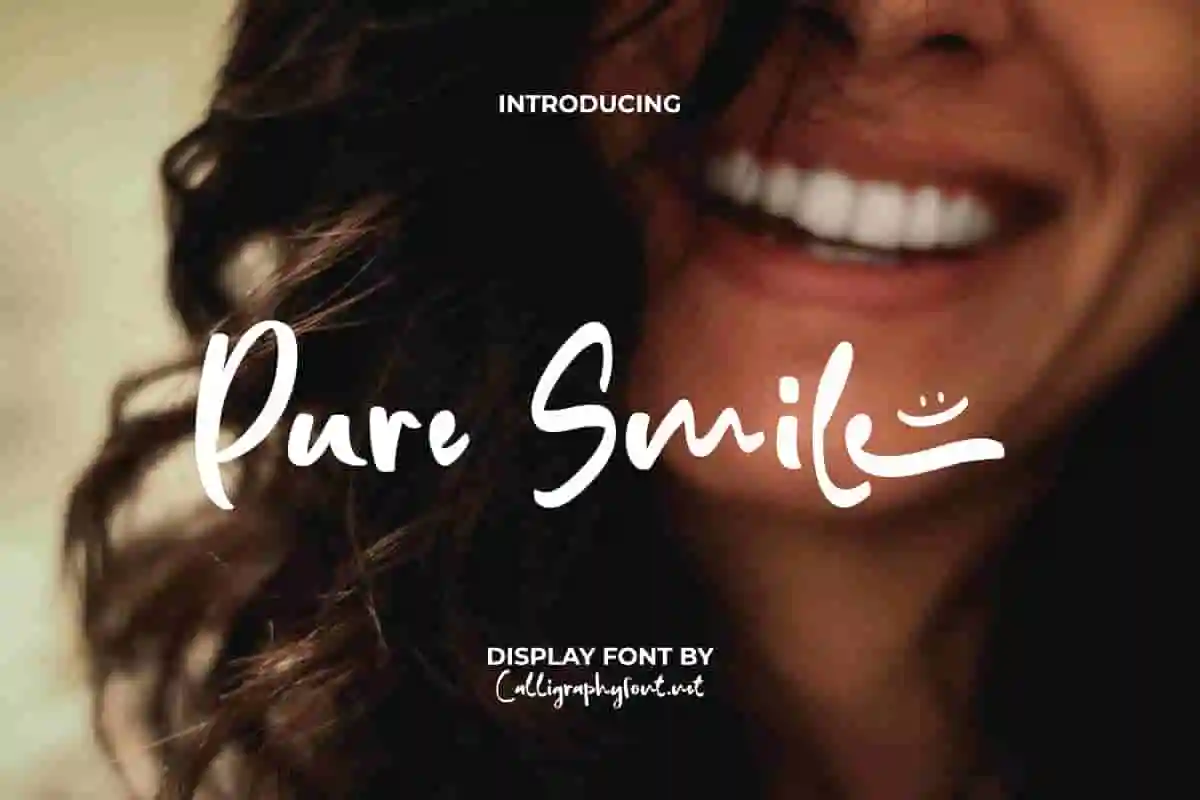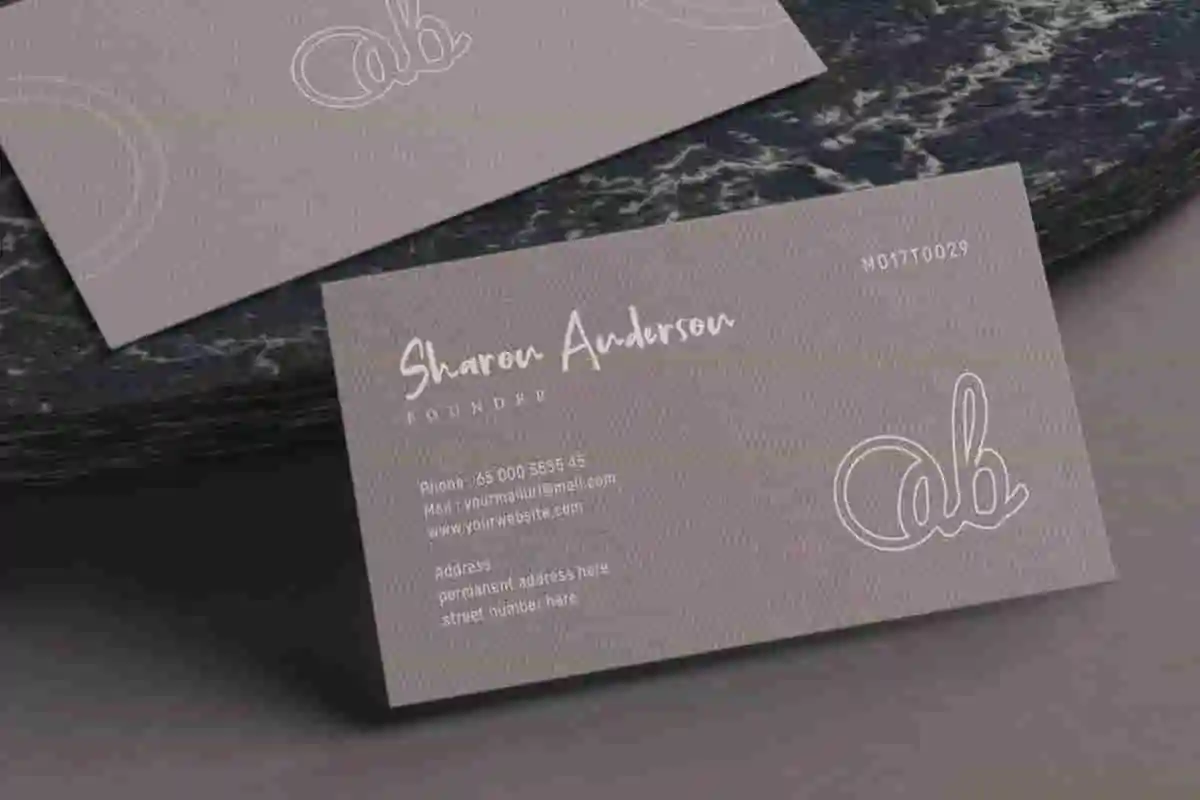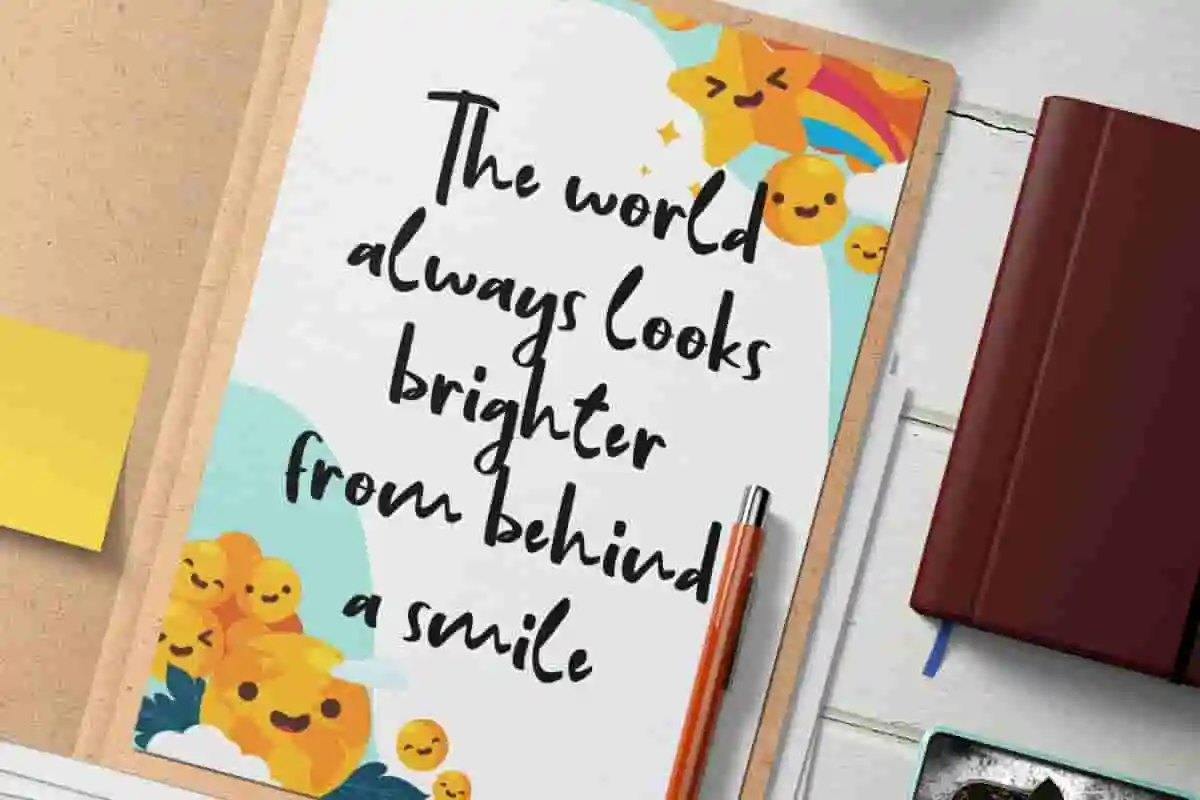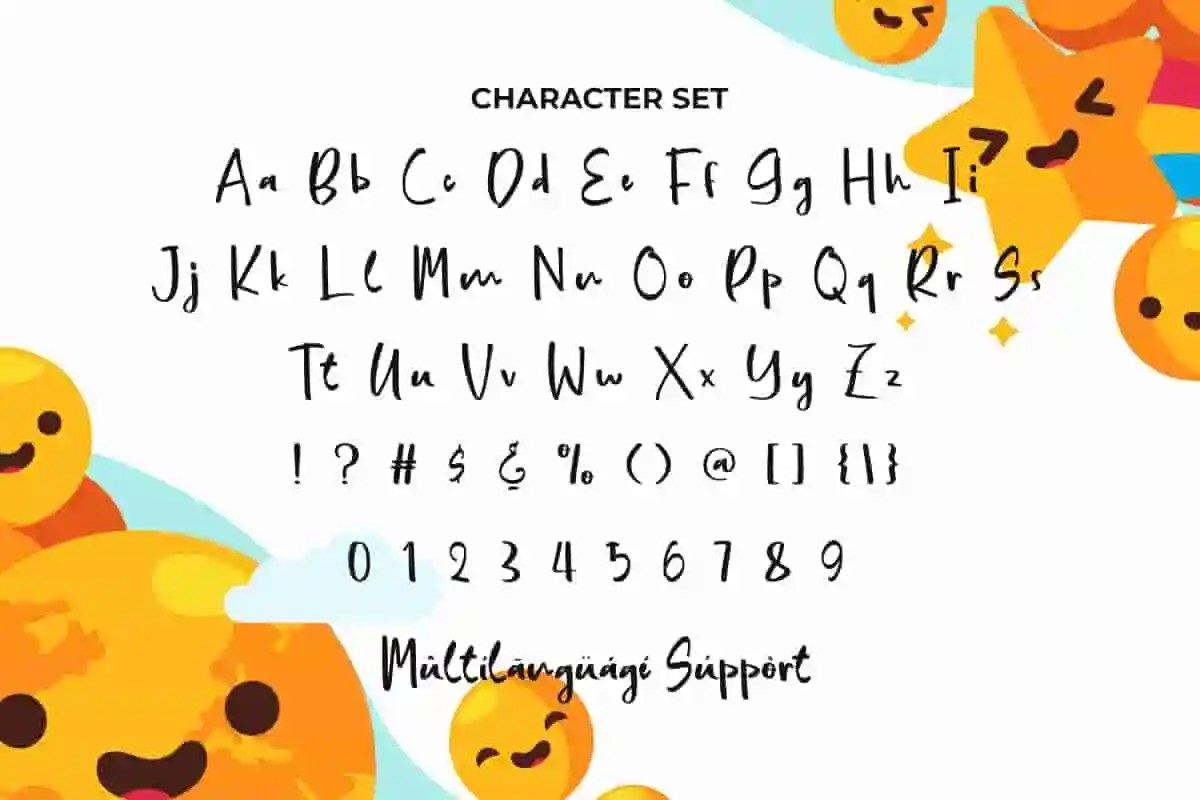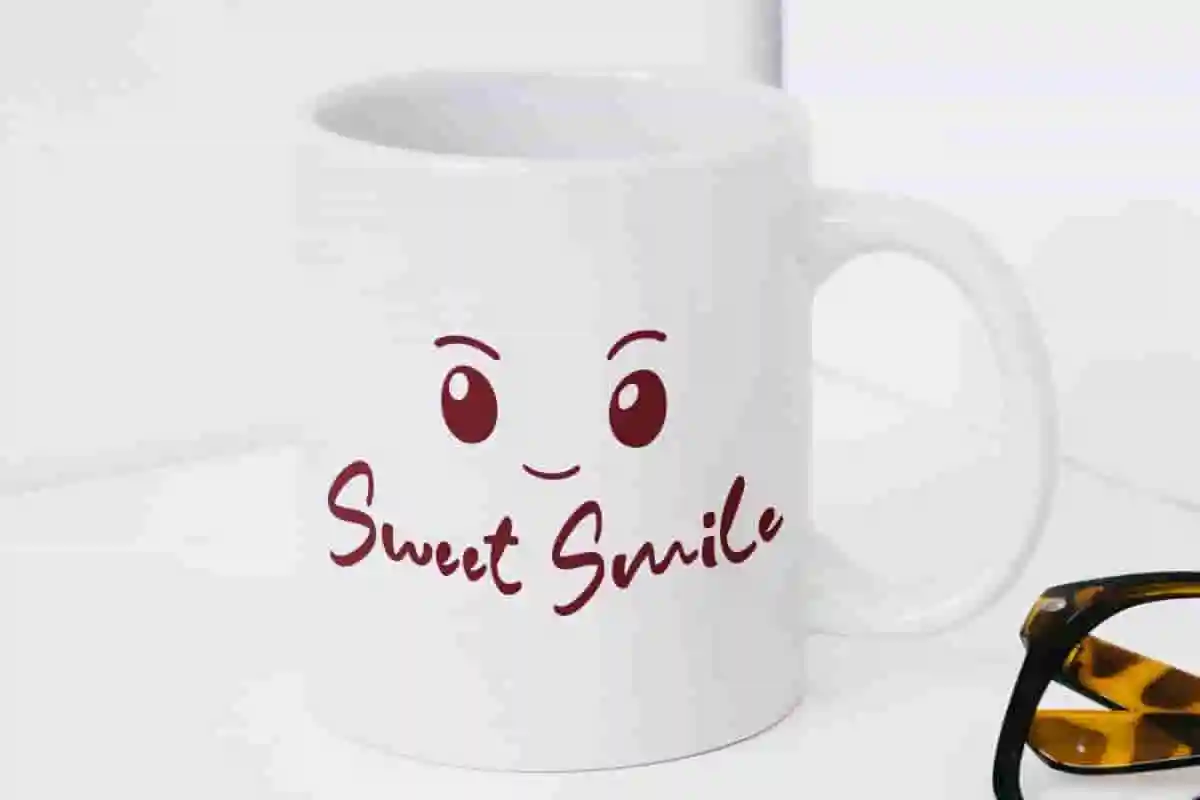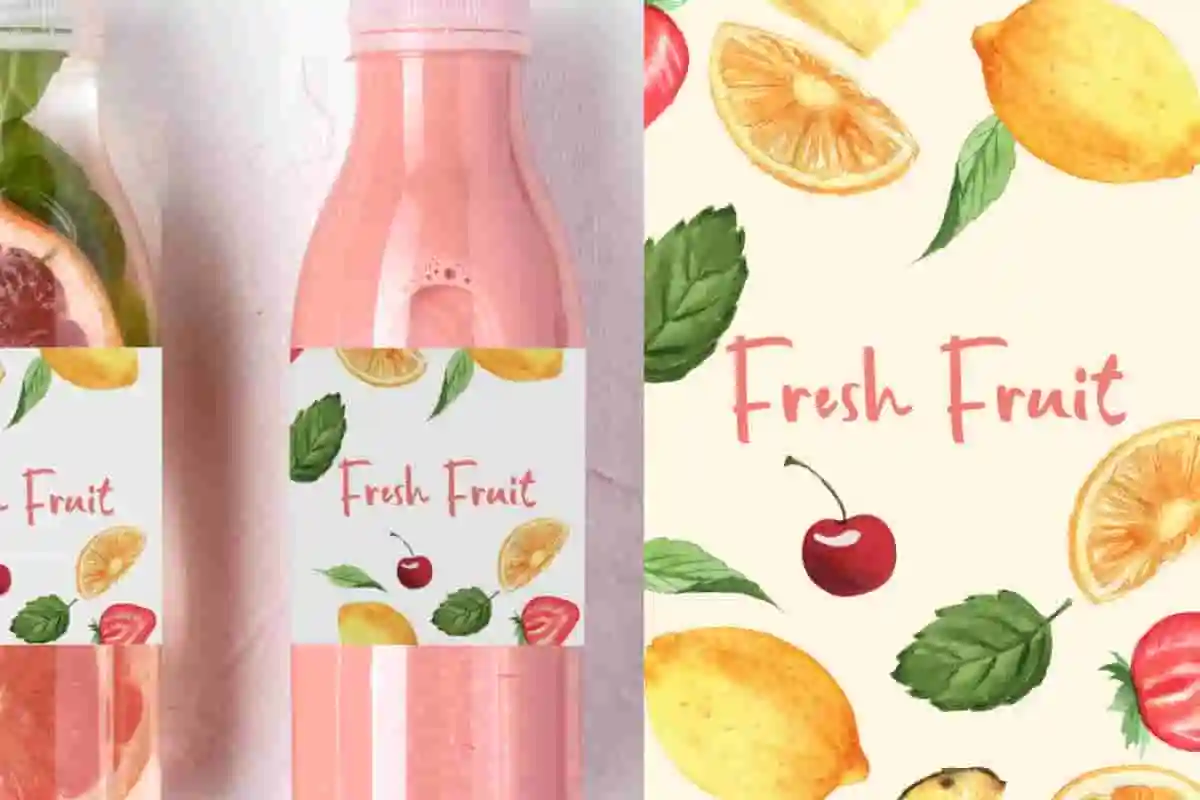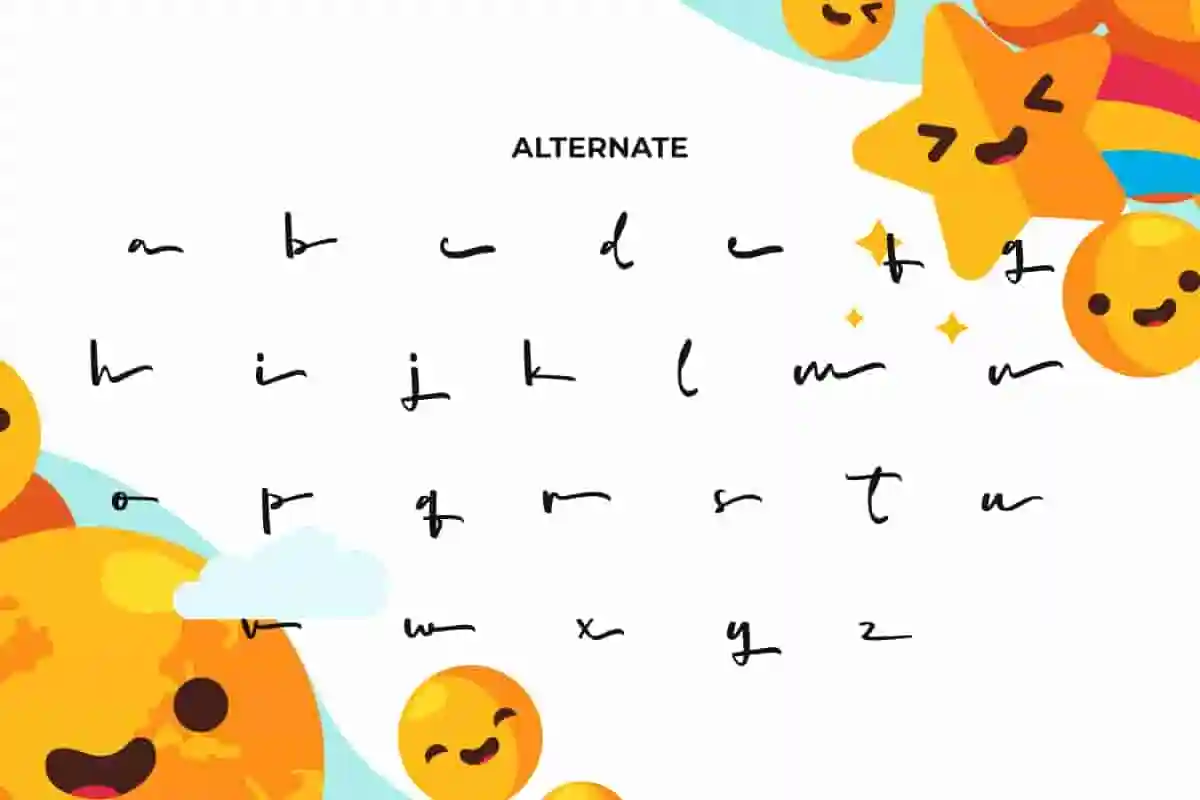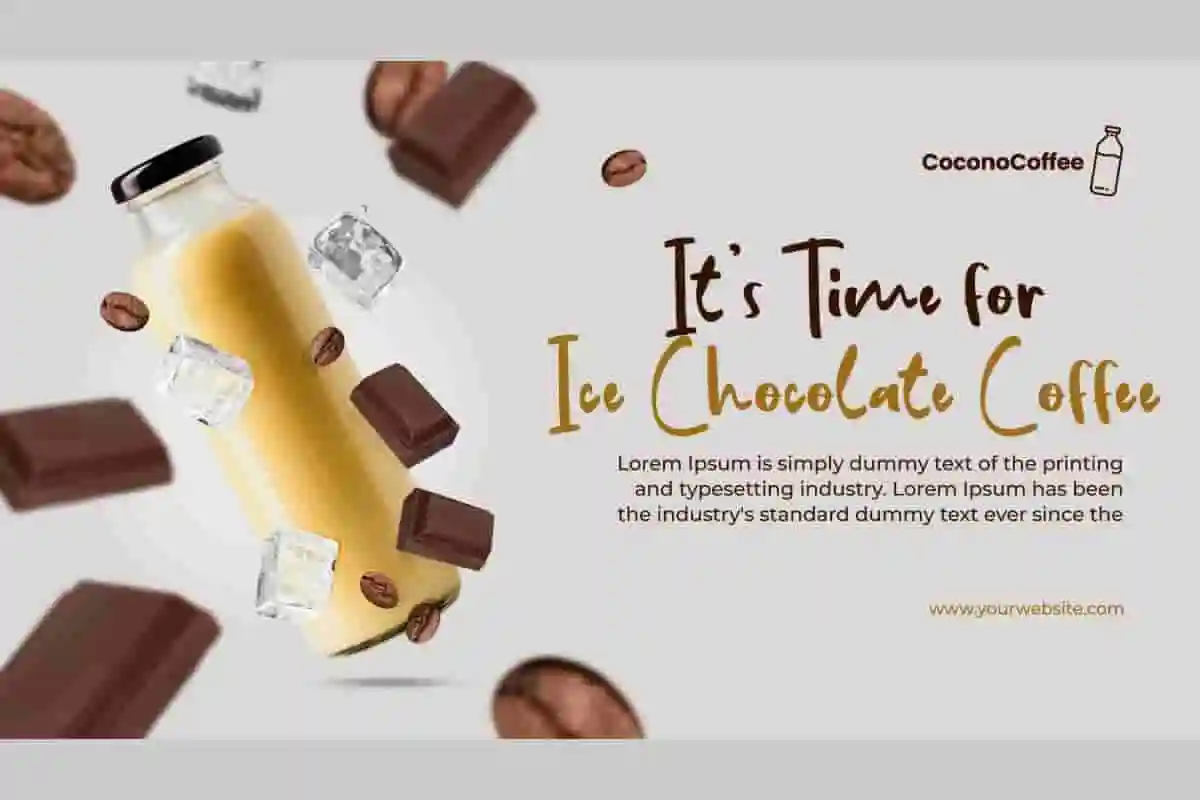
Pure Smile Display Font
Pure Smile Font is a playful display handwriting font with unique shapes and decoration that will be perfect for many projects and will amaze you at very first sight!
Pure Smile Font is a playful display font with handwriting style. The uniqueness of this font can make you smile and make you enthusiastic about creating designs, such as advertising material, billboard, brand image, cover, custom design, flyer, invitation, label, menu, packaging, poster, screen print, signage, social media post, stationery, sticker, title, website, and many more!
Say hello to Pure Smile Display Font, a clean, fresh, and cheerful typeface designed to bring a positive vibe to any project. Whether you’re working on branding, social media graphics, packaging, or promotional materials, this font adds a warm and friendly touch that instantly grabs attention.
Bring positivity and clarity to your designs with Pure Smile Display Font, a fresh and modern display typeface designed to radiate happiness and simplicity. With its clean lines and friendly curves, this font is perfect for branding, packaging, social media, headlines, and any project that needs a cheerful, approachable vibe.
Inject happiness and clarity into your creative projects with Pure Smile Display Font, a clean and cheerful display font that brightens up any design. Perfect for logos, product packaging, social media posts, invitations, and branding, this font combines simplicity with a friendly vibe that instantly connects with your audience.
- Clean & Friendly Design
- Versatile for Many Projects
Pure Smile Font can complement every type of design you create, so many industries will use it, such as accessories, advertisement, book and comic, event organizer, café, content creator, fashion, graphic design, handicraft, homeware, photography, printing, publishing, etc.